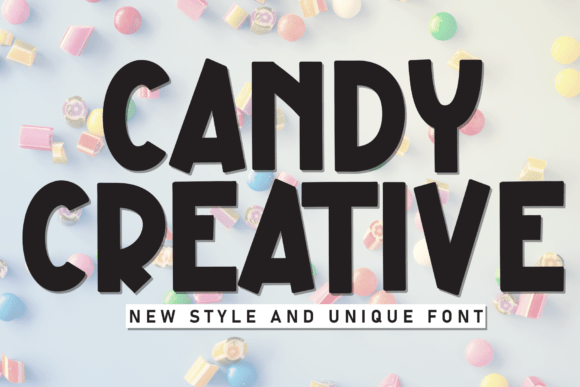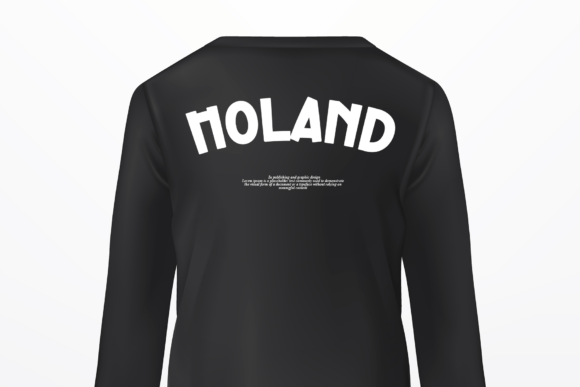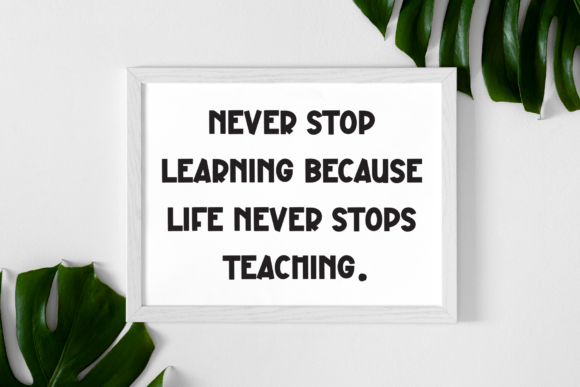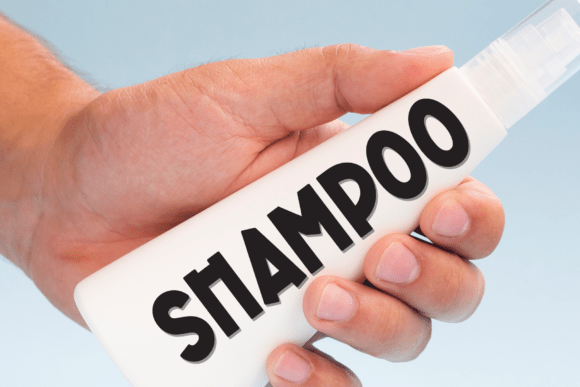
Candy Creative Font
About the Candy Creative Font
Meet Candy Creative Font, a stunning font that brings a touch of elegance and professionalism to any design. Candy Creative is a casual and neat display font that radiates a fresh, friendly vibe. With clean lines and a relaxed structure, it’s perfect for packaging, posters, and social media graphics. The approachable design adds charm and clarity to projects while maintaining a polished appearance.
Candy Creative excels in headline applications, short-form content, and branding elements where a friendly, approachable aesthetic is desired. Its casual nature makes it ideal for projects targeting younger demographics or those emphasizing playfulness and approachability. Avoid using it for body text or lengthy paragraphs; its legibility suffers at smaller sizes.
Pair Candy Creative with a clean sans-serif like Lato for a balanced contrast, or a more geometric sans-serif such as Montserrat for a modern feel. For a touch of elegance, consider pairing it with a delicate serif typeface like Playfair Display. The combination creates visual interest without sacrificing readability.
Its overall personality is best described as cheerful and modern, making it a strong choice for brands focused on creativity, fun, and approachability. It lacks the formality for corporate settings or projects requiring a sophisticated, serious tone.
Candy Creative Font Usage Examples
Candy Creative Font Example